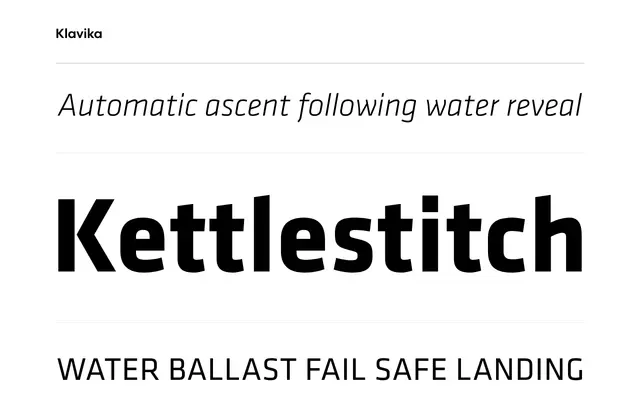
Klavika
Process Type Foundry · Eric Olson · 2004
A hybrid sans by Eric Olson that blends geometric structure with humanist openness across four weights and eight styles.
Released in 2004 by Eric Olson, Klavika sits between geometric and humanist traditions without fully committing to either. Crisp, open letterforms keep it readable at small sizes, while straight-sided characters give it weight and authority at display scale. The family extends into Klavika Condensed and Display variants, and the OpenType feature set includes small caps, old-style and tabular numerals, stylistic alternates and arrows.
Klavika sits between geometric and humanist traditions, with straight-sided characters suggesting geometric construction and open, readable forms that lean humanist. Process Type describe it as a hybrid with allegiances to neither.